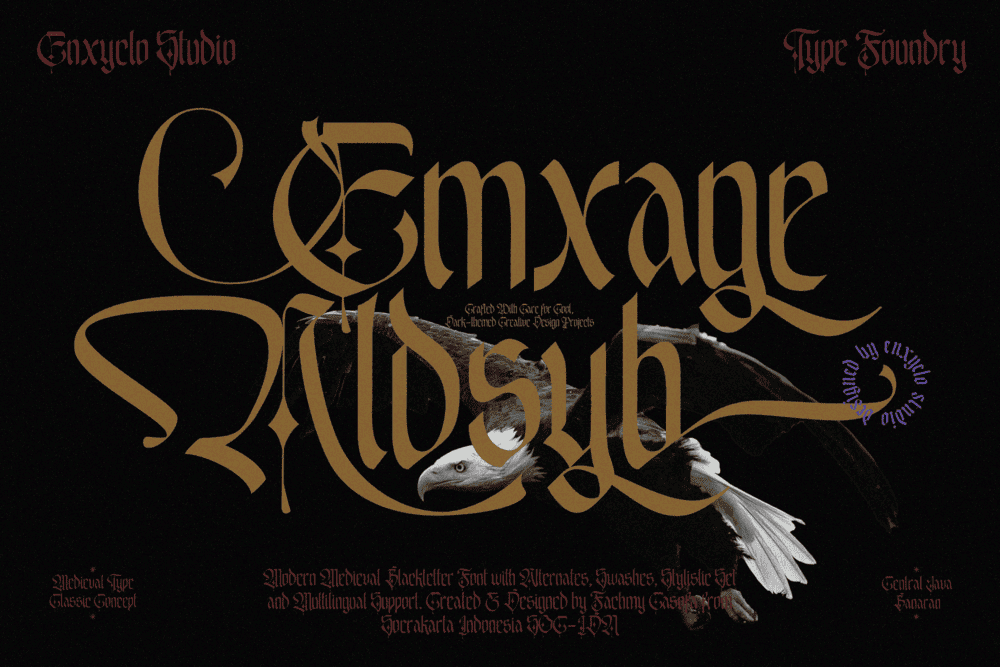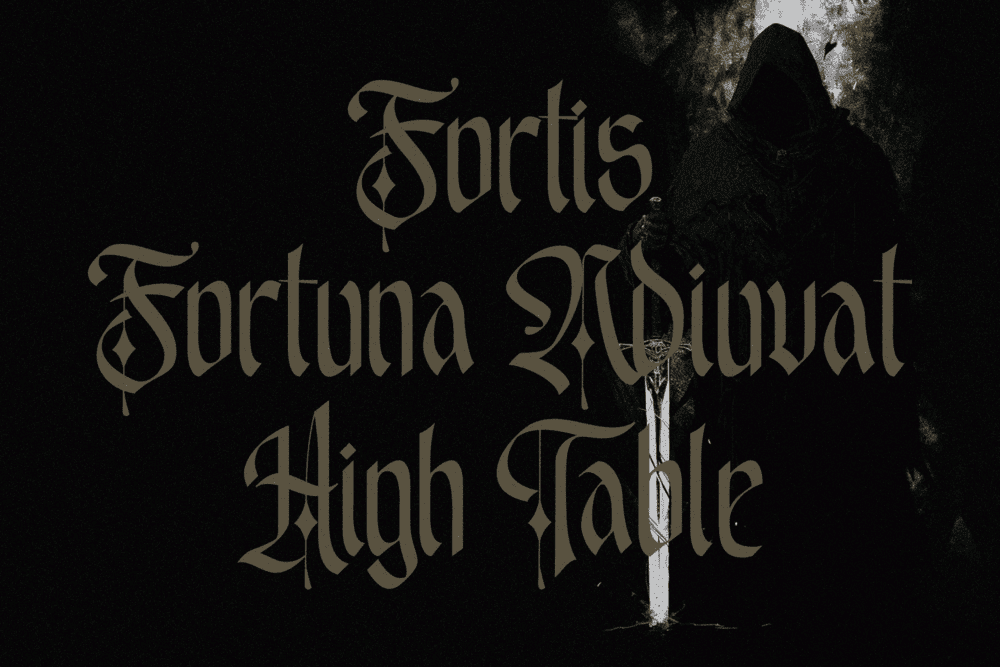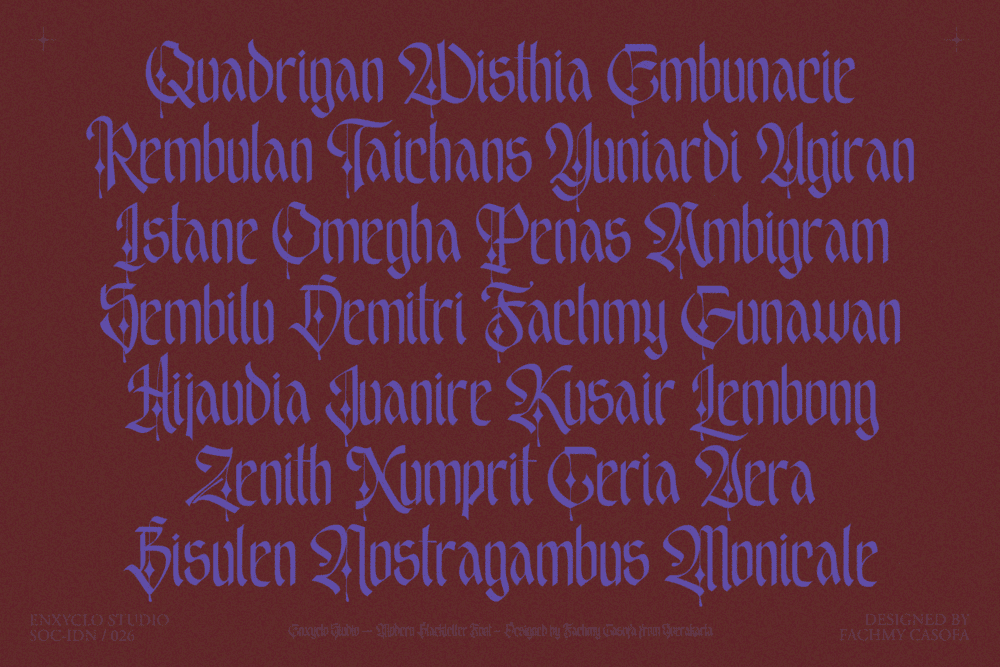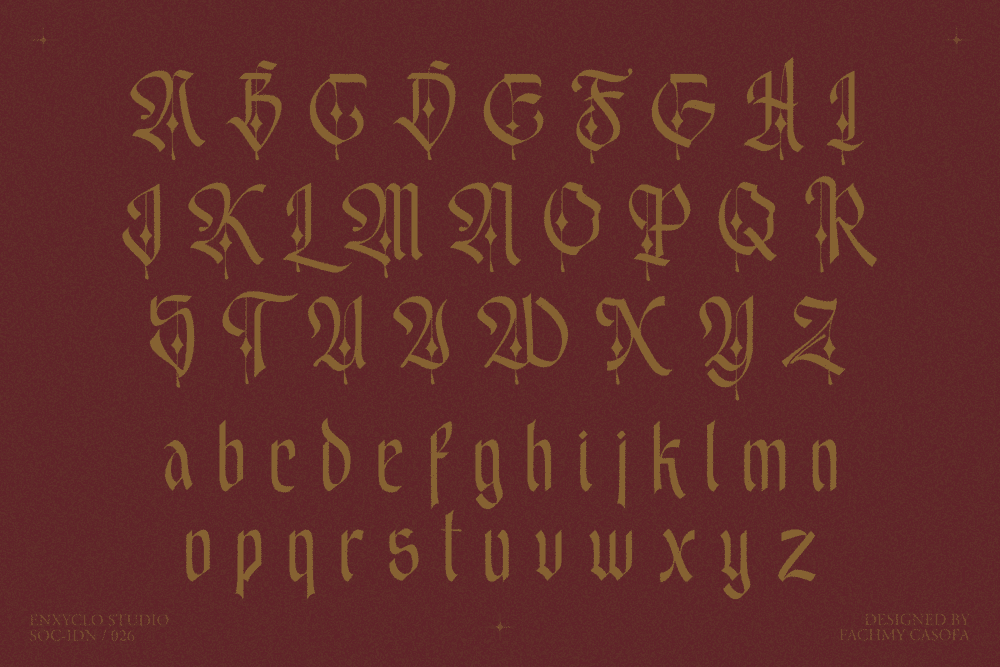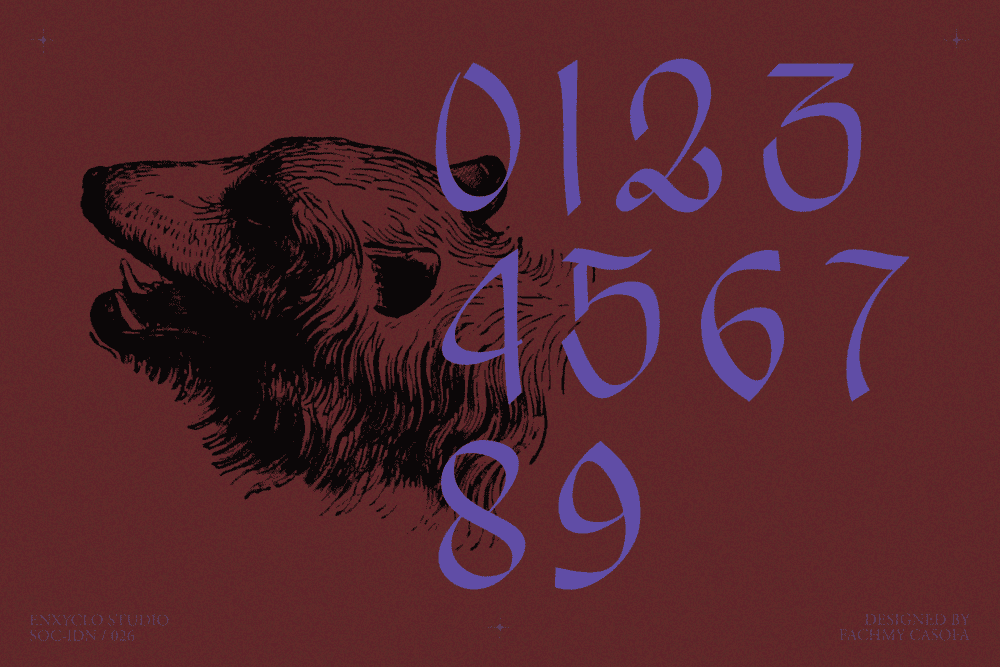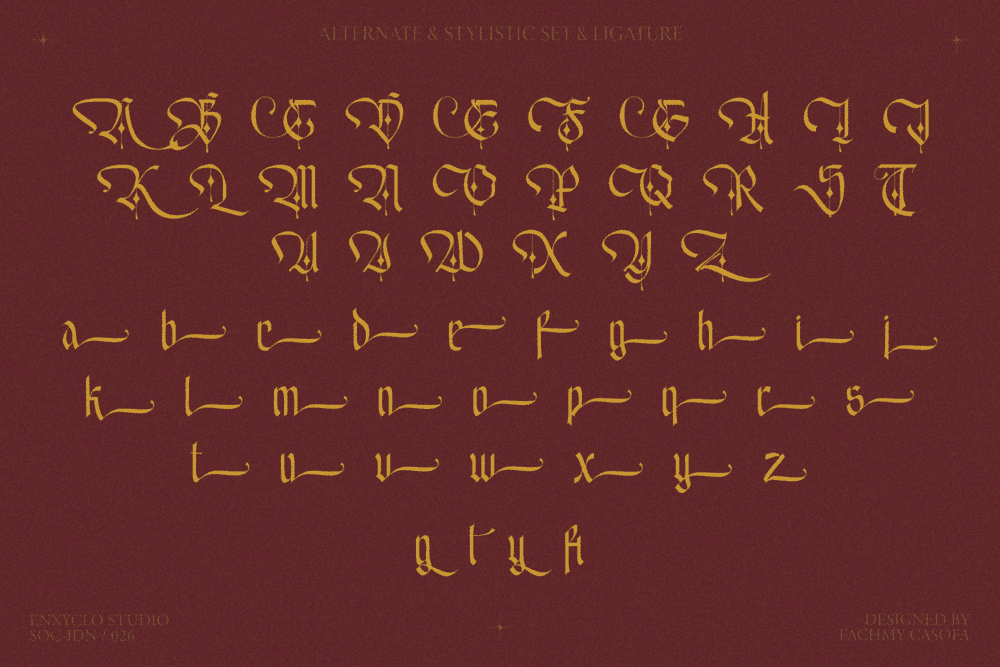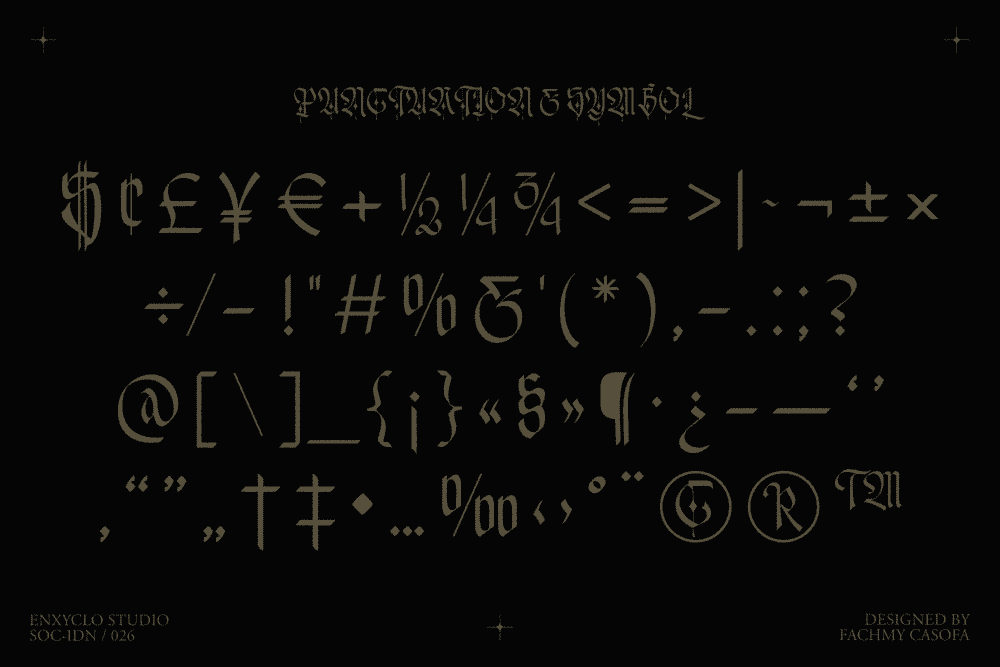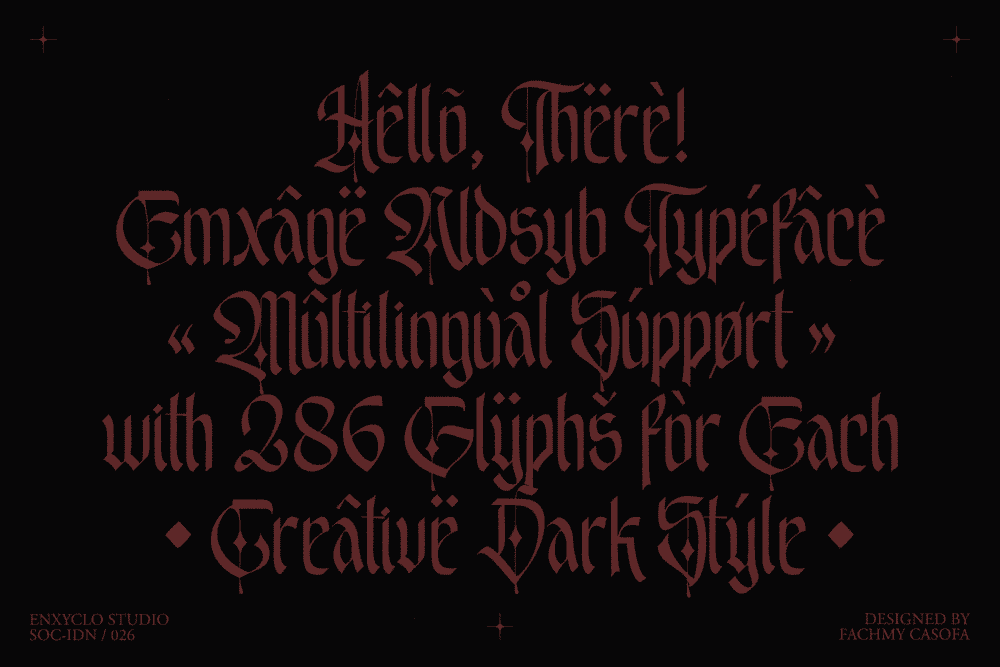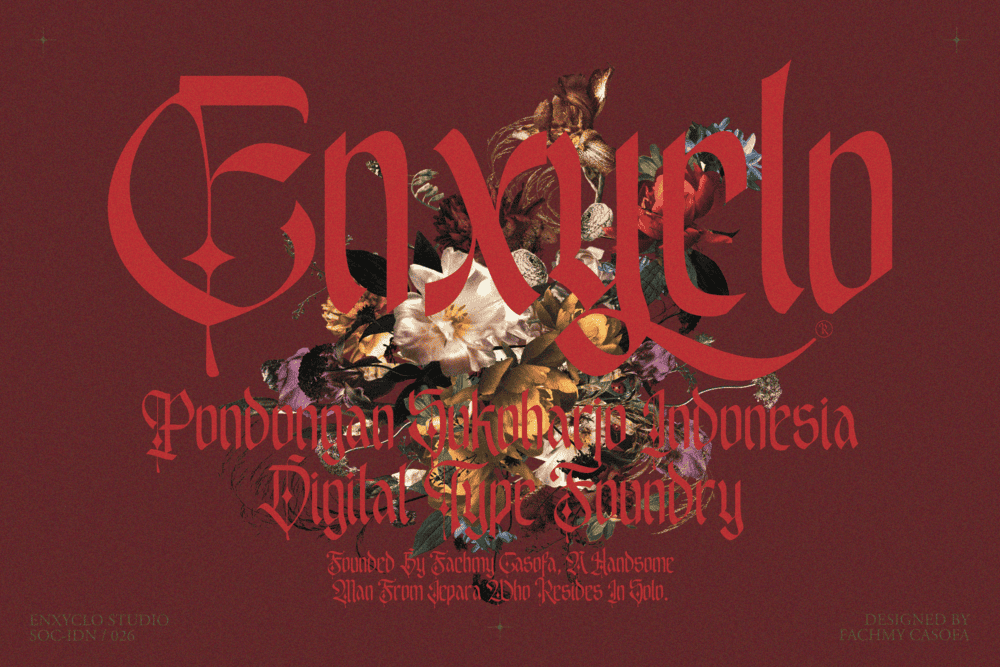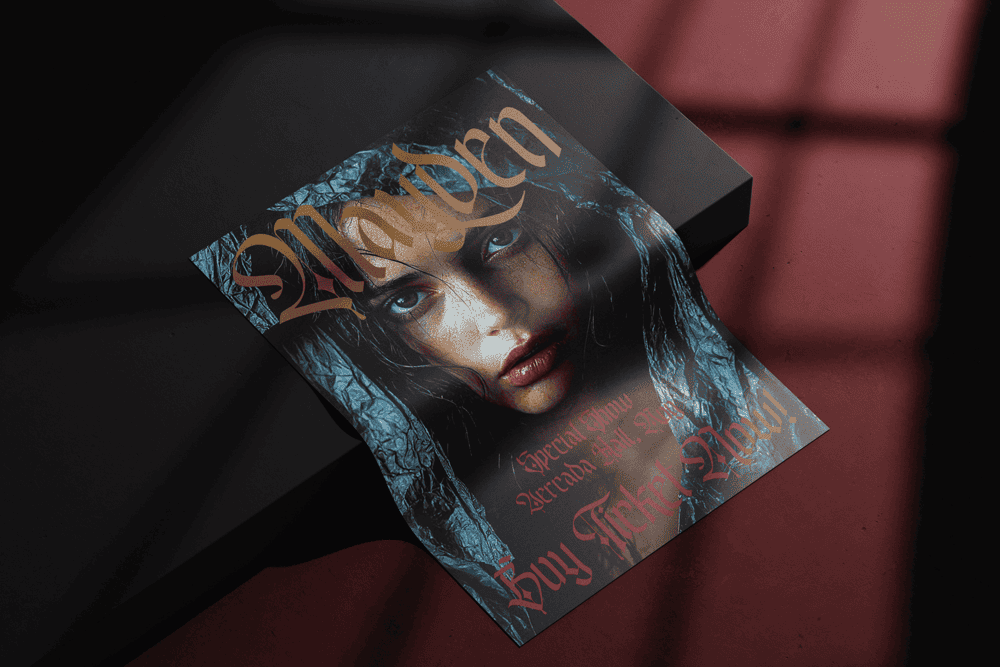
EMXAGE ALDSYB is a modern medieval blackletter font forged in darkness, where ancient calligraphy collides with the raw intensity of black metal, death metal, and underground music culture. Built with sharp edges, chaotic strokes, and scratchy, tribal textures, this typeface embodies a brutal aesthetic that feels both historic and aggressively modern.
Infused with swash details and rough ornamental energy, EMXAGE ALDSYB channels the spirit of devilish symbolism, infernal imagery, and extreme metal visuals. Every letter is crafted to feel aggressive, chaotic, and unapologetically bold, making it a perfect weapon for designs rooted in thrash metal, hardcore, metalcore, and rock scenes.
This font thrives in darkness, ideal for album covers, band logos, tattoo designs, and visuals that demand intensity. Its brutal character and underground attitude create a commanding presence, turning any composition into a statement of rebellion and raw expression.
If your work lives in the world of chaos, distortion, and extreme sound, EMXAGE ALDSYB delivers a visual identity that is loud, infernal, and unforgettable.
FEATURE
• Uppercase & Lowercase Letters
• Numeral, Punctuation Marks, Currencies & Symbol Set
• Alternate, Stylistic Set & Ligature